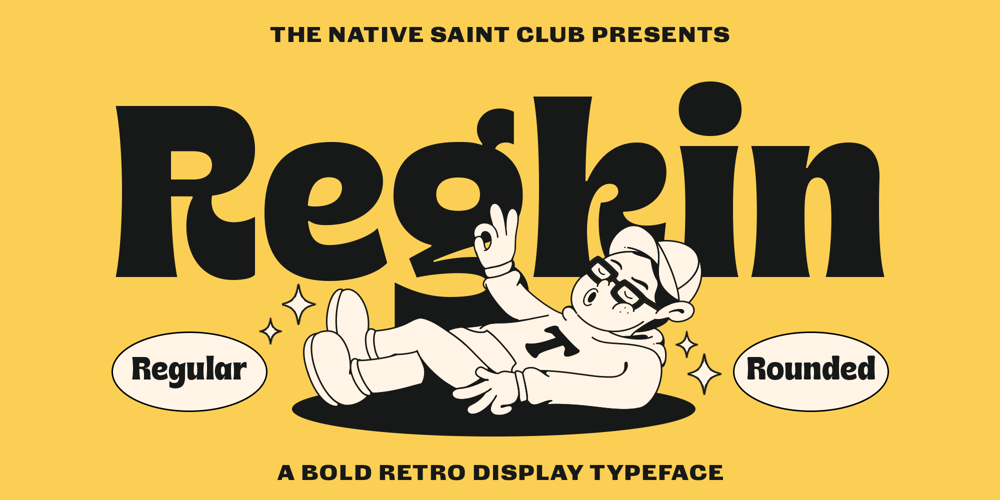
Regkin Display Font Family was designed by Bagas Ferdiansah, Septianto Nugroho and published by The Native Saint Club. Regkin Display contains 2 styles and family package options. TNSC Regkin – Retro display typeface that comes in two styles, regular and rounded. This cheerful, bold retro font is very suitable for design posters, headlines, concert music posters, and other large print formats. Inspired by design styles that are currently popular, and this font is here to be your choice.